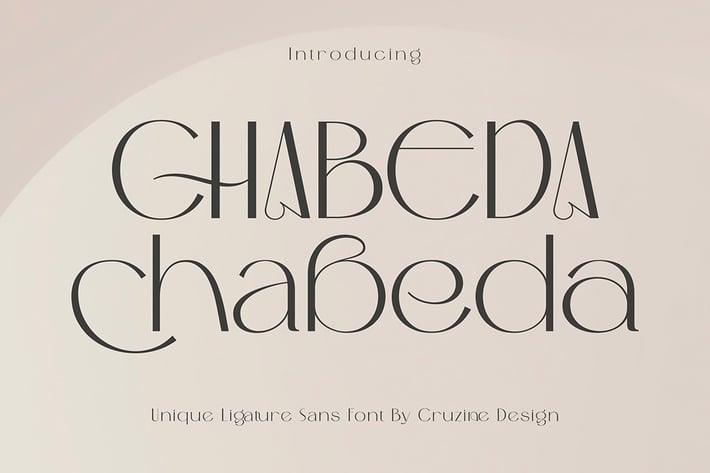
Chabeda Modern Sans Font
Trendy, elegant, luxury, romantic & modern style sans serif font for your new fancy projects. Stylish, creative and classic style on Chabeda font will be great for any modern or classy branding project. Lot of alternates and ligatures will help you to create unique and original logo design or website header! Enjoy :)
- Multilingual support
- Alternate characters
- Lot of ligatures
- Great for modern branding projects!